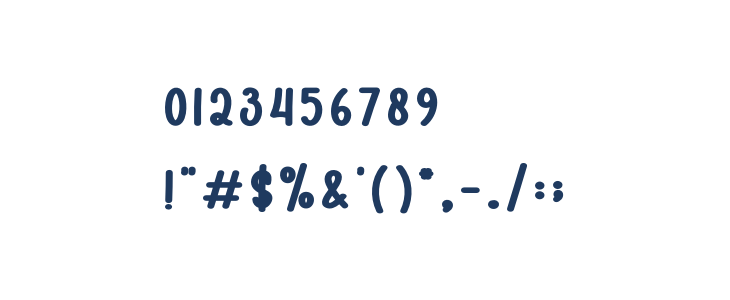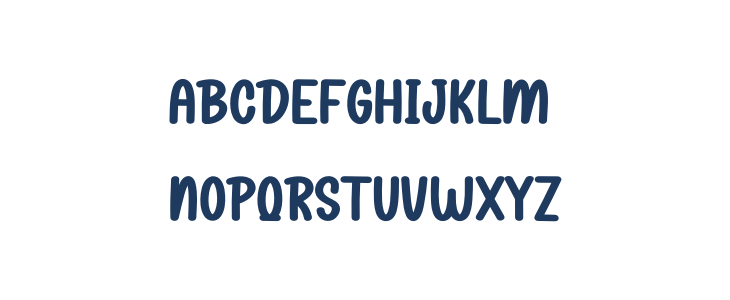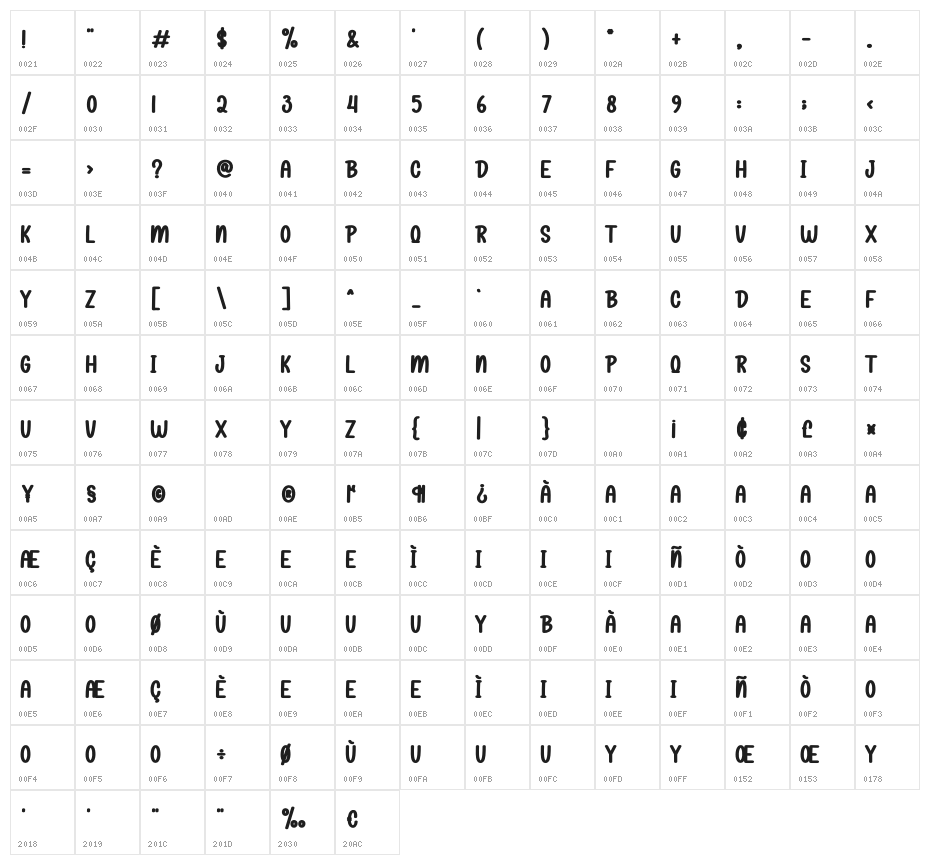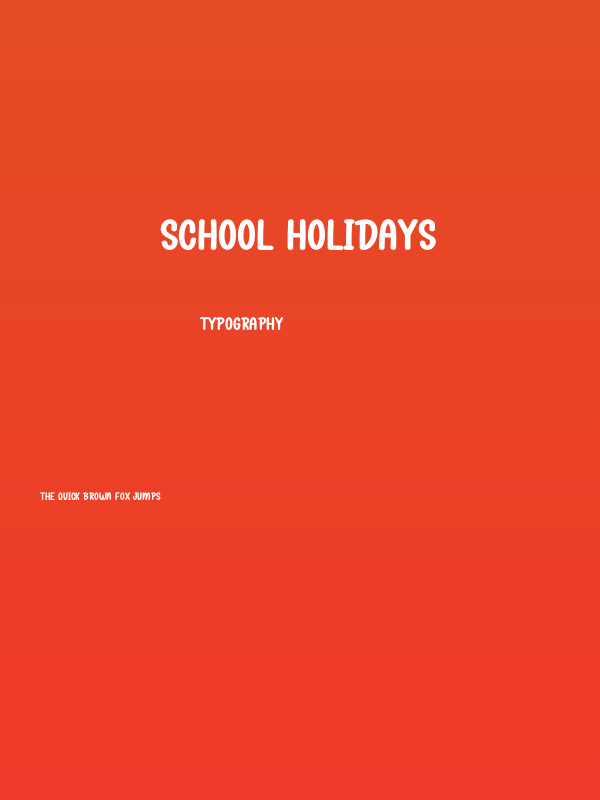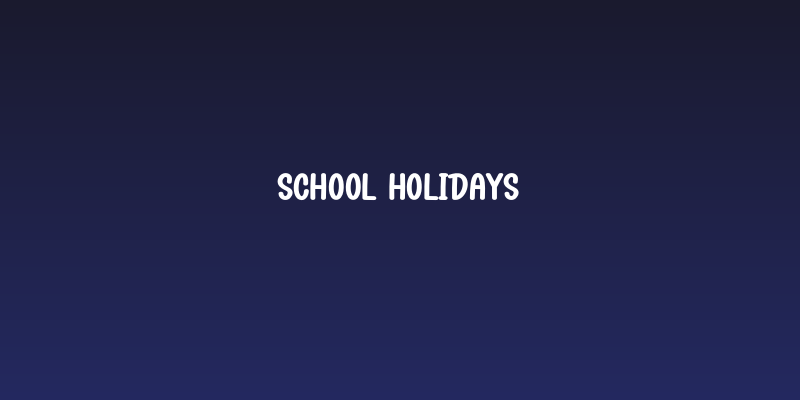
School Holidays Font
School Holidays Description
A playful, rounded sans-serif font with uniform stroke width, soft curves, and a hand-drawn appearance. The characters are bold and slightly condensed, giving a friendly and approachable feel. The numbers and punctuation match the whimsical style of the letters.
| Overall Style | Playful, Handwritten, Modern |
| Use Case | Headlines, Posters, Children's materials, Logos |
| Proposed Projects | Children's books, educational materials, posters, party invitations, playful branding. |